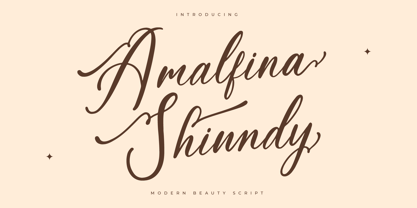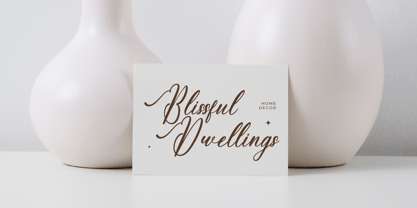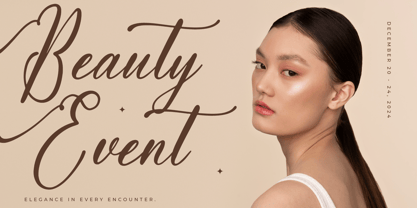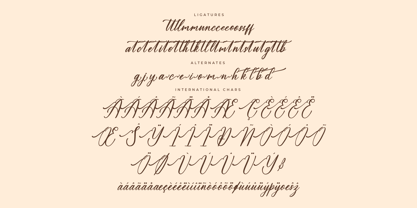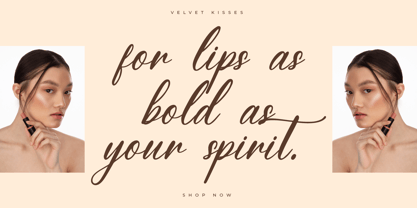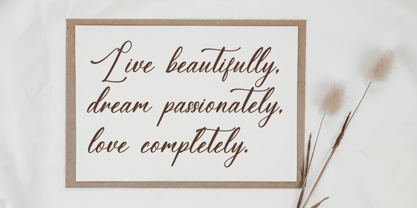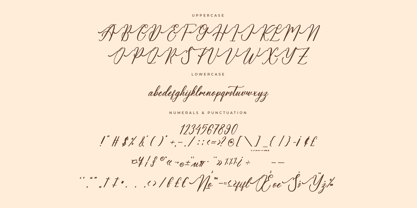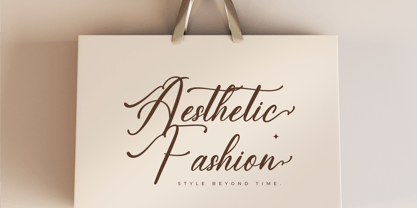
Amalfina Shinndy
The Amalfina Shinndy Font Family was designed by Heru Utama Putra and published by Letterena Studios. Amalfina Shinndy contains 2 styles and family package options. More about this family
Amalfina Shinndy – Modern Beauty Script , from Letterena, is a Luxury Script font, suitable for any projects such as: logos, branding projects, homeware designs, product packaging, mugs, quotes, posters, shopping bags, t-shirts, book covers, name card, invitation cards, greeting cards, label, photography, watermark, special events, and all your other luxury and beautiful projects that need a Luxury serif taste.